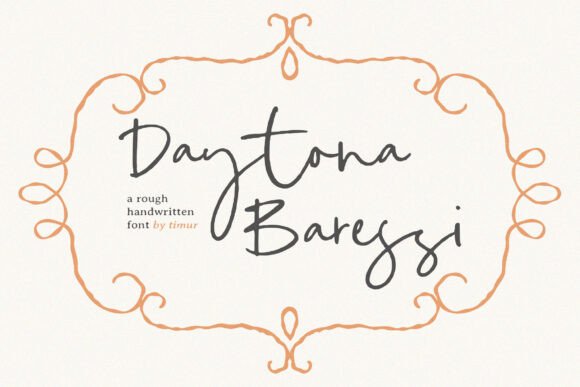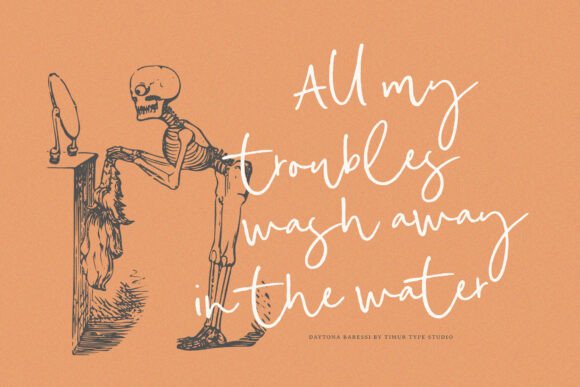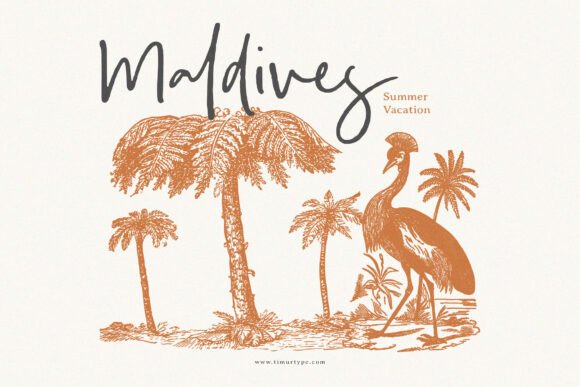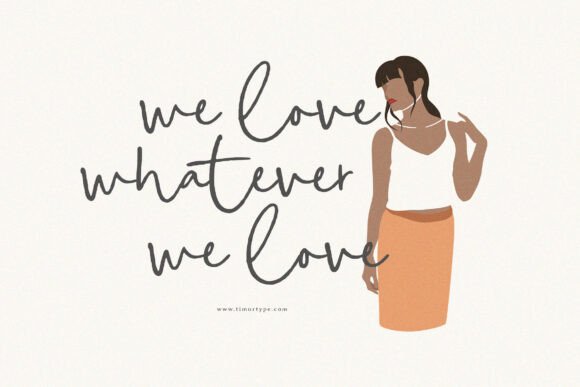
Daytona Baressi Font
About the Daytona Baressi Font
Meet Daytona Baressi Font, a stunning font that brings a touch of elegance and professionalism to any design. Daytona Baressi is a unique rough handwritten font that captures the essence of casual elegance. Its bold strokes and organic imperfections evoke a sense of authenticity and warmth, making it perfect for projects that require a touch. Whether used in branding, invitations, or creative displays, Daytona Baressi adds a stylish, handcrafted feel that resonates with a relaxed, artistic vibe.
Daytona Baressi excels in headlines, short text blocks, and branding applications where a touch of handcrafted authenticity is desired. It works particularly well for logos, posters, and packaging for products with a lifestyle or artisanal focus. However, its rough texture and inconsistent stroke weight make it less suitable for body text or UI elements requiring high legibility.
This font’s personality is bold yet approachable. Its slightly imperfect forms convey a sense of warmth and approachability, balancing a casual elegance. For optimal pairings, consider a clean sans-serif like Montserrat for a modern contrast, or a classic serif such as Garamond for a sophisticated pairing. A playful script font could also complement its informal character, depending on the project needs.
Using Daytona Baressi with a carefully chosen complement will ensure visual harmony and emphasize its unique qualities. The choice of pairing should reflect the overall design goal, be it a modern, classic, or more playful aesthetic.